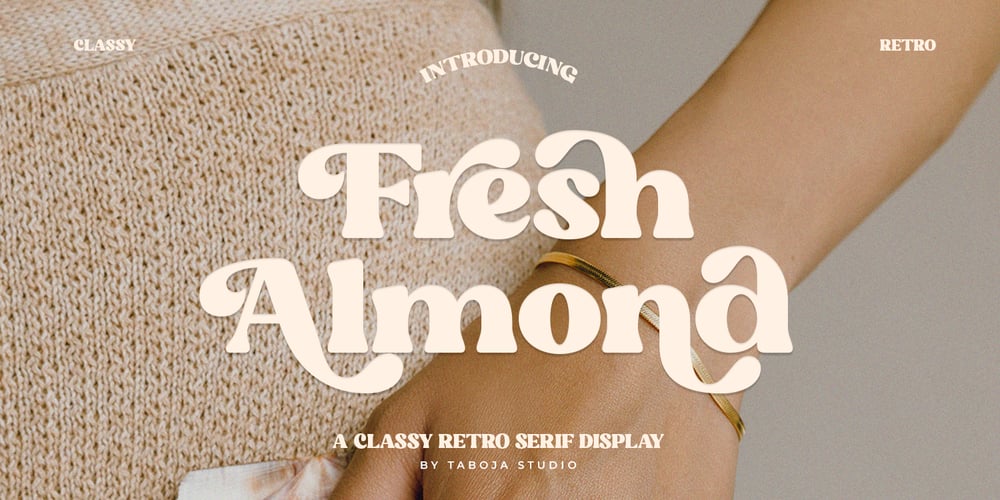
Fresh Almond Classy Retro Serif Font Family was designed by Yusilo Oktaprima Ardani and published by Taboja Studio. Fresh Almond Classy Retro Serif contains 1 styles and family package options. Fresh Almond crafted with precision, our Fresh Almond Serif Font adds a touch of class to any project, be it logos, branding, print materials, or web design. It’s sleek and elegant lines exude professionalism, while the subtle groovy elements inject a hint of playfulness, making it perfect for a wide range of design applications.With its balanced proportions and distinctive serifs, this font ensures readability and visual appeal across various mediums. Elevate your designs with the perfect blend of sophistication and groove – try our Fresh Almond Serif Font today and let your creativity flow seamlessly across all your projects.Fresh Almond Features: Regular Uppercase And Lowercase Alternates And Ligatures Numerals & Punctuation Accented characters Multilingual Support Unicode PUA Encoded We highly recommend using a program that supports OpenType features and Glyphs panels such as Adobe Illustrator, Adobe Photoshop CC, Adobe Indesign, or CorelDraw, so you can see and access all Glyph variations.While using this product, if you encounter any problem or spot something we may have missed, please don’t hesitate to drop us a message. We’d love to hear your feedbacks in order to further fine-tune our products.Stay creative and have a wonderful day.